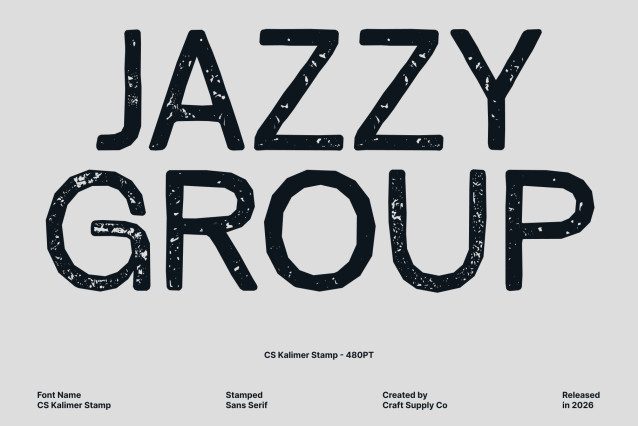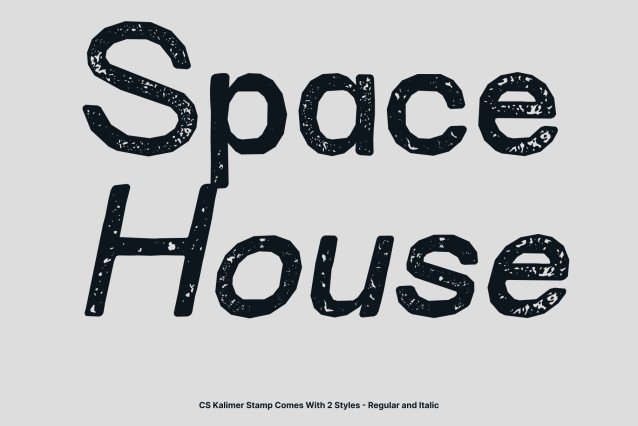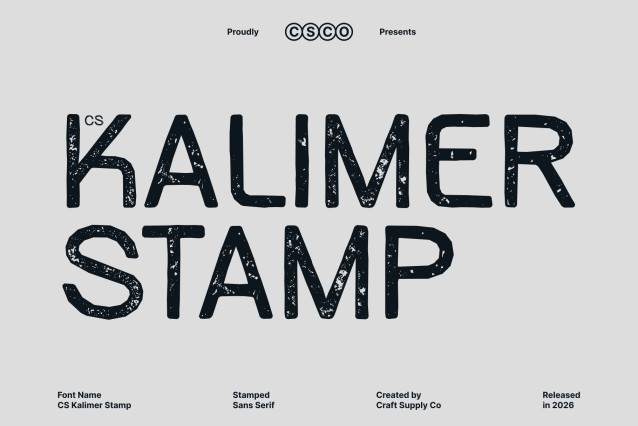
CS Kalimer Stamp Font
CS Kalimer Stamp – Modern Sans Serif Font
Clean Modern Sans Serif with Stamp Texture
This is a clean and modern sans serif font designed to deliver clarity and simplicity. Enhanced with a stamp effect, the smooth letterforms gain subtle distress, textured edges, and an organic inked appearance, creating a unique balance between modern minimalism and vintage charm.
Ideal for Clear and Stylish Communication
Perfect for web design, pamphlets, logos, and branding projects, this font ensures your message remains easy to read while gaining a handcrafted character. The stamped texture adds visual interest without compromising legibility.
Versatile and Contemporary with Retro Character
Despite its minimalist structure, the vintage stamp finish introduces warmth and personality. This combination makes the font suitable for both modern and retro-inspired projects across print and digital media.